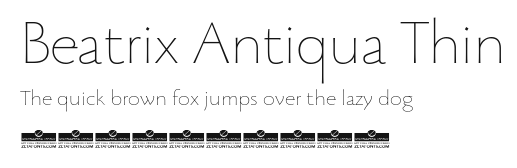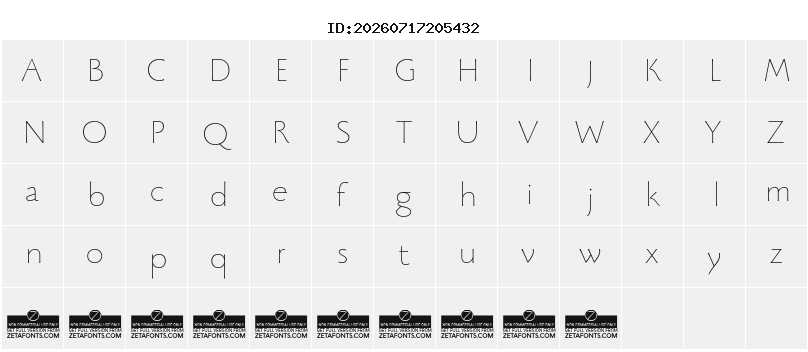
Beatrix Antiqua Thin Preview
• Font Name: Beatrix Antiqua Thin
• Designer: Francesco Canovaro
• Manufacturer: Studio Kmzero
About Beatrix Antiqua Thin.ttf
Beatrix Antiqua Thin.ttf is a modern, elegant sans-serif font designed for ultimate readability and visual harmony. Perfect for branding, headlines, web design, and print materials.